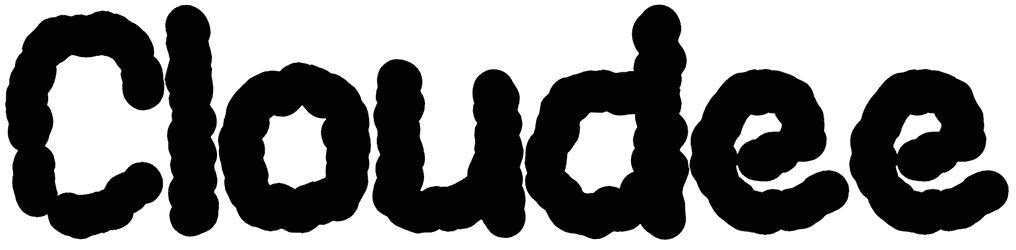
c Cloudy Cloud Font
C Cloudy Cloud Font
Can you resist writing in the shape of lovely clouds? No one can heartily dislike this ravishing face, and you are capable of adding it to your coming design by c Cloudy Cloud as a decorative font. With its pale, bulky face, this cloudy font is an inimitable illustration for a lot of designs, such as flyers, covers, foregrounds, or similar things.
Designed by: wep